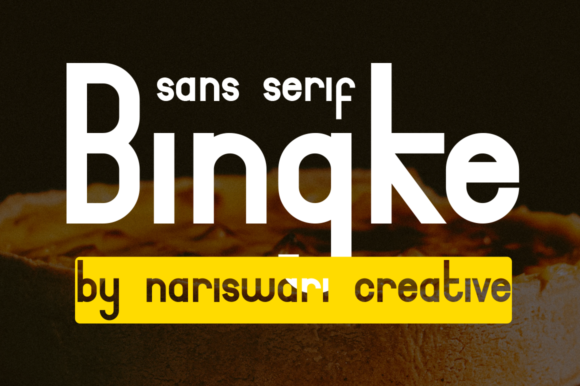
The Designer’s Delight: Unpacking the Bingke Font
I’ll never forget the time I was working on a branding project for a trendy new coffee shop. My client was particular about the aesthetic, and I was struggling to find the perfect font to match their vibe. That’s when I stumbled upon Bingke – a minimal and neat sans serif font that instantly caught my eye. It was like the design gods had finally answered my prayers! ✨
In this article, I’ll share my experience with Bingke, its features, and how to make the most of it in your designs. Whether you’re a seasoned designer or a creative hobbyist, you’ll love the versatility and charm of this font.
An Honest Review of Bingke
What I Love About Bingke
- ✨ Clean and Minimal Design: Bingke’s sans serif design makes it perfect for modern and sleek projects.
- ✅ Highly Versatile: It can be used for a wide range of projects, from branding and advertising to packaging and digital media.
- 💡 Excellent Legibility: The font is easy to read, even at small sizes, making it ideal for body text and captions.
While Bingke is an excellent font, it’s not perfect. Here are a few things to keep in mind:
- 🤔 Limited Character Set: Bingke might not have an extensive character set, which could limit its use for certain languages or special characters.
- ⚠️ Not Suitable for Body Text: While it’s legible, Bingke might not be the best choice for long-form body text due to its minimalist design.
- Experiment with OpenType features like ligatures and stylistic alternates to add visual interest.
- Montserrat: A geometric sans serif font with a similar feel to Bingke. Use it for modern and urban projects.
- Inter: A contemporary sans serif font designed for digital interfaces. It’s perfect for tech and startup branding.
- Raleway: A elegant sans serif font with a more refined feel. Use it for luxury branding and high-end projects.
- Open Sans: A clean and friendly sans serif font. It’s great for digital media and body text.
The Story Behind Bingke
Bingke was designed with the goal of creating a clean and versatile font for modern designs. While the designer is unknown, it’s clear that Bingke was crafted with attention to detail and a passion for typography.
Q: What type of projects is Bingke best suited for?
A: Bingke is highly versatile and can be used for a wide range of projects, including branding, advertising, packaging, and digital media.
Q: Does Bingke support OpenType features?
A: Yes, Bingke supports OpenType features like ligatures and stylistic alternates, which can add visual interest to your designs.
Q: Is Bingke suitable for body text?
A: While Bingke is legible, it might not be the best choice for long-form body text due to its minimalist design. It’s better suited for headings and titles.